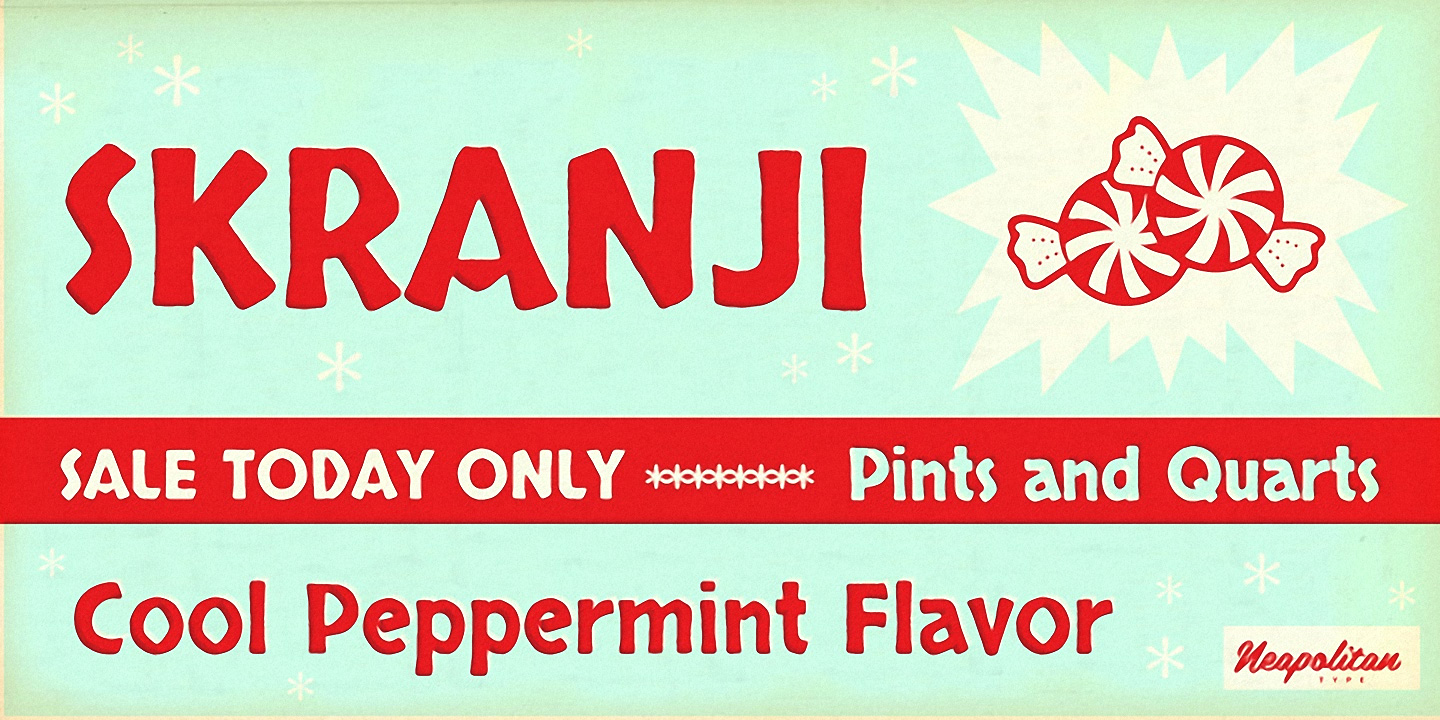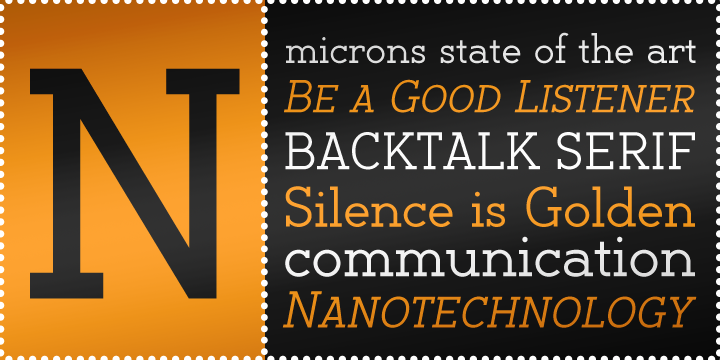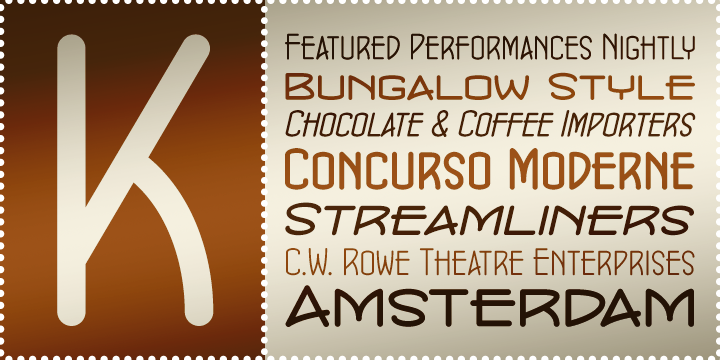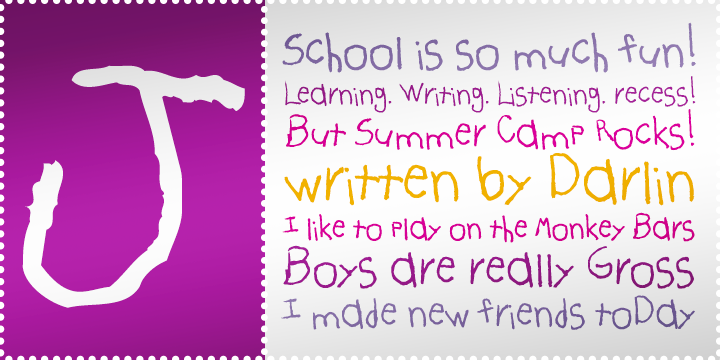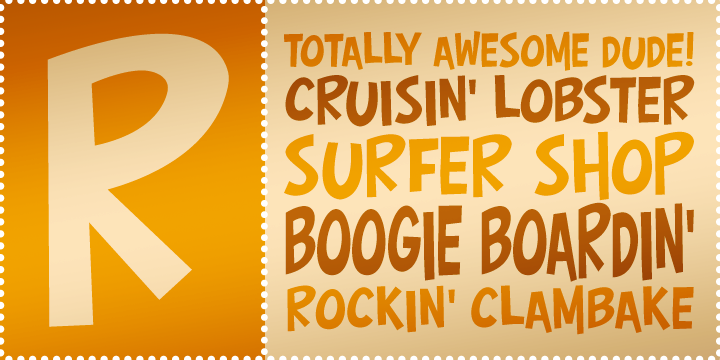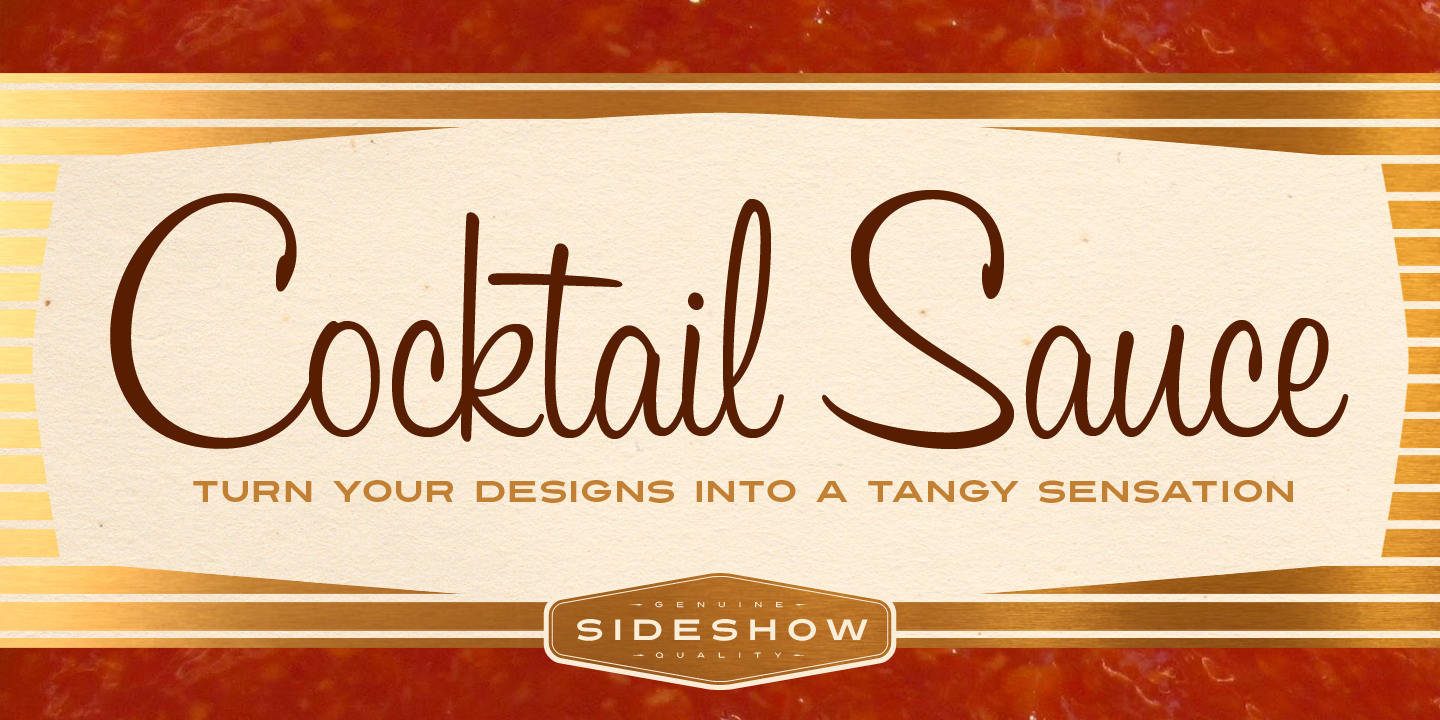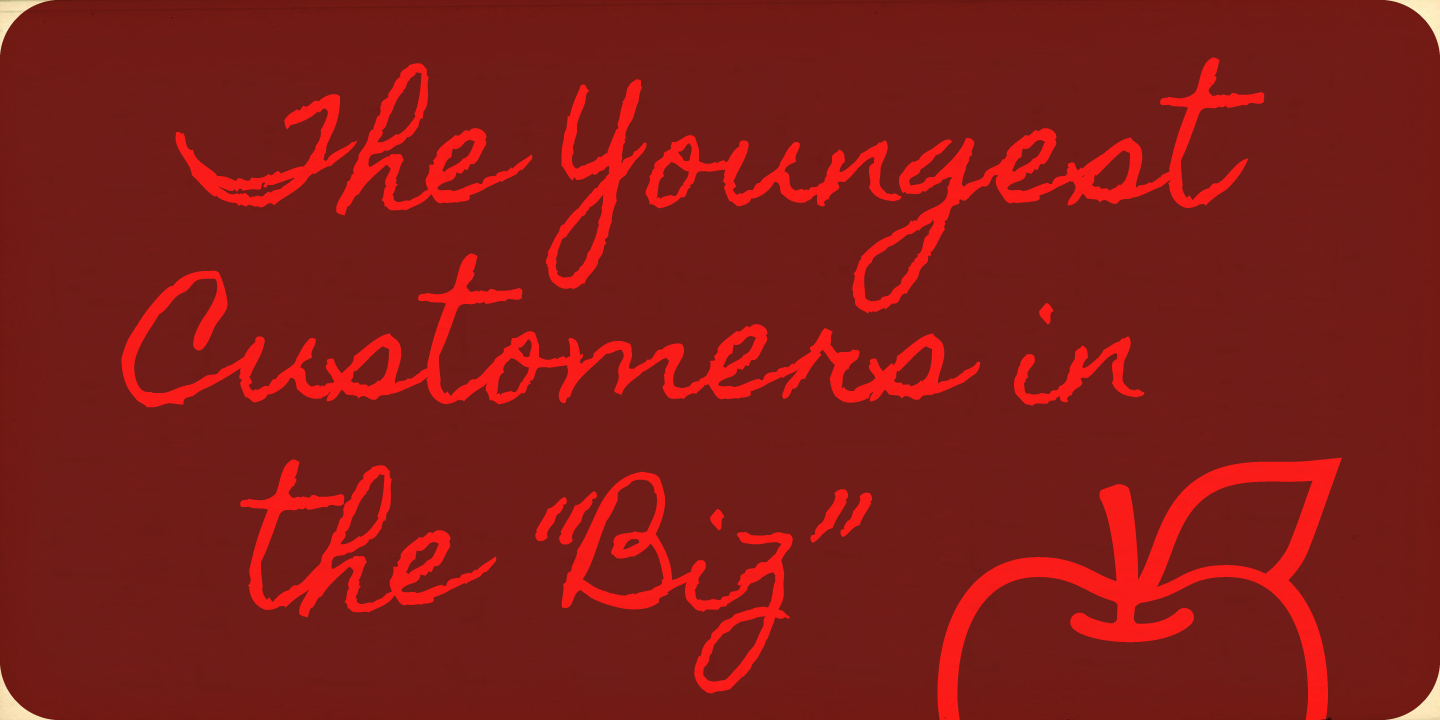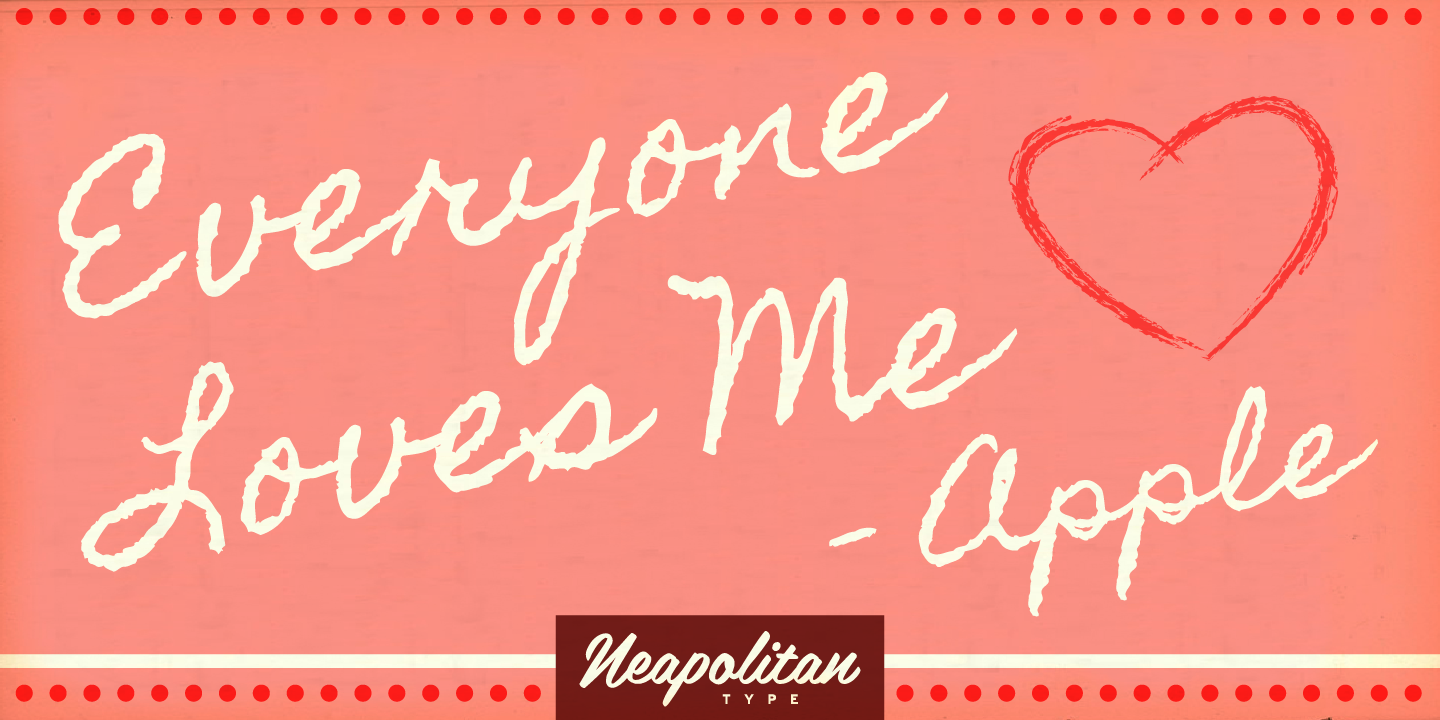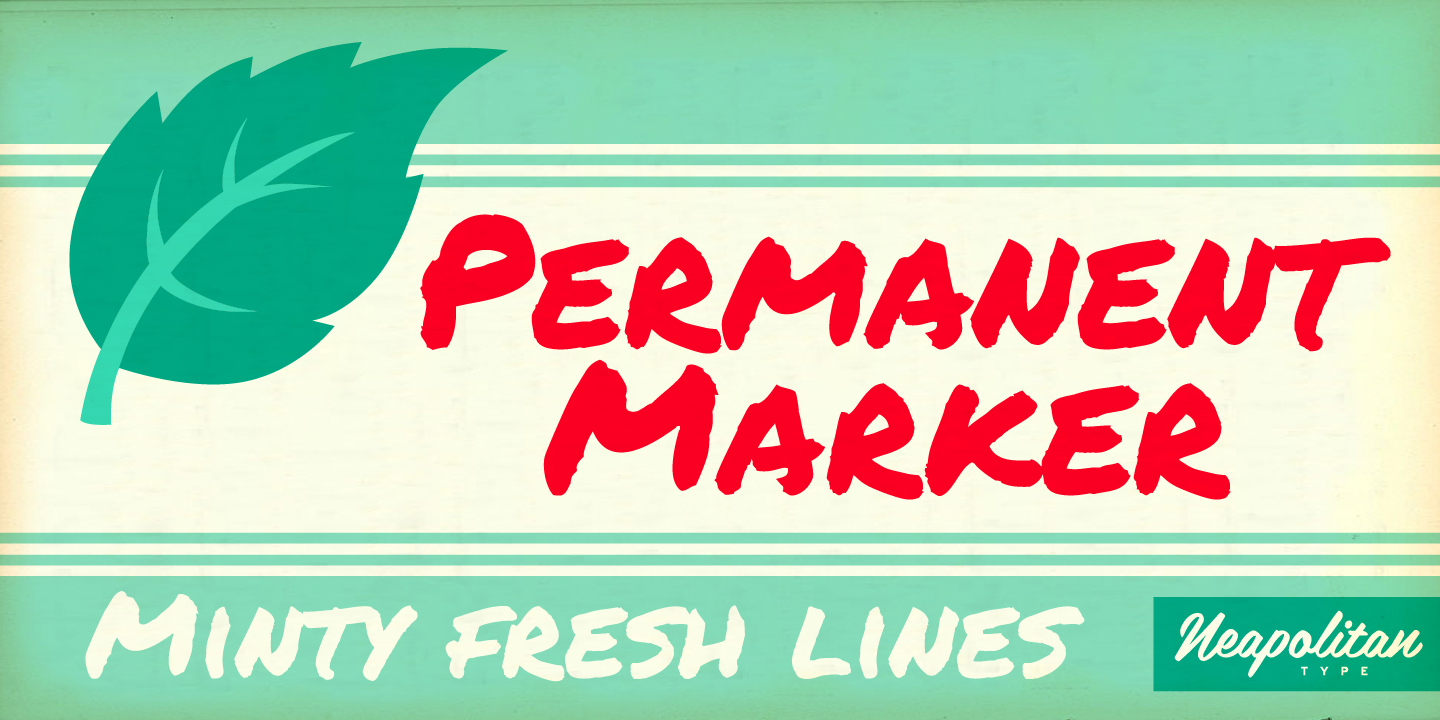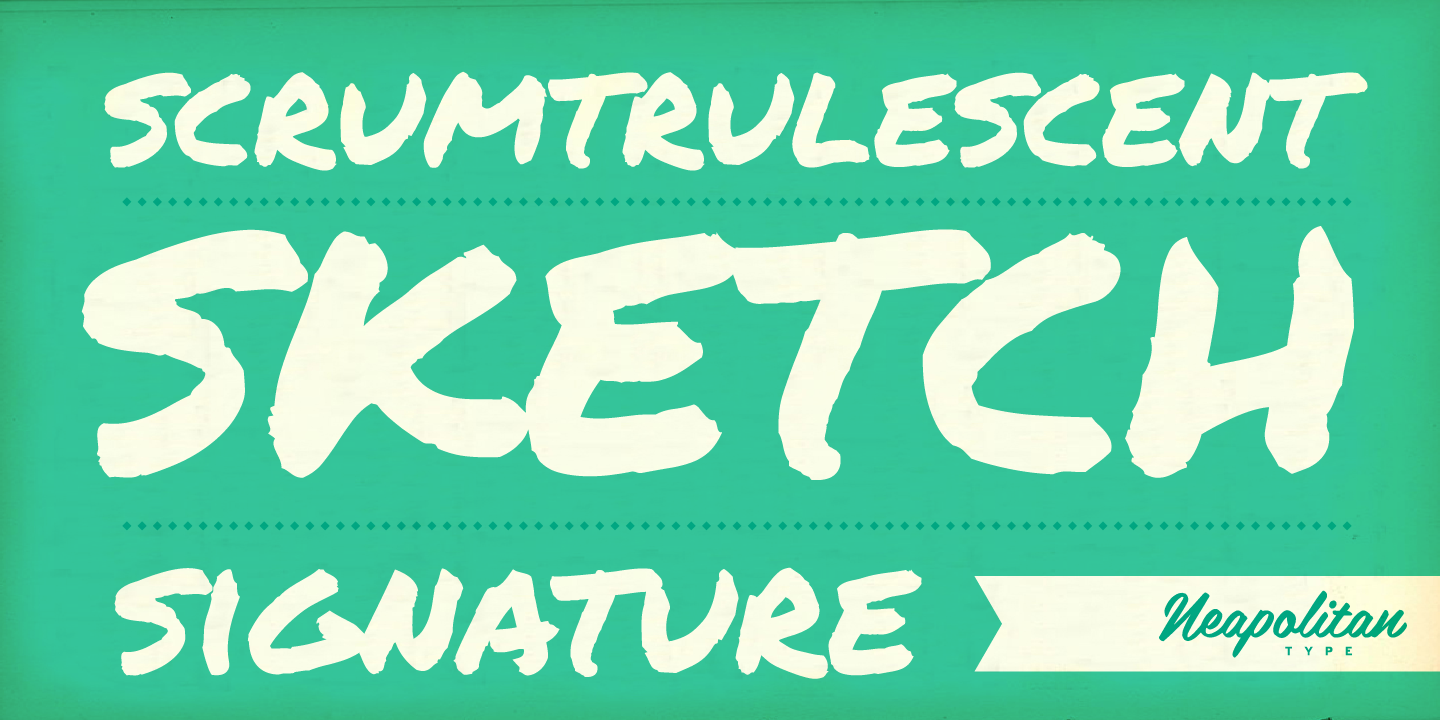
Born: Chicago, Illinois, 1973
Stuart Sandler launched the Font Diner foundry in 1996 and has become a major resource for retro design software products. He has created more than 400 original typefaces for the graphic design industry and established a reputation as the premier retro display typography designer inspired by 1950s popular culture.
Sandler added a second division called Mister Retro to the Font Diner umbrella in 2004 that features Machine Wash Image Filters™ and Snappy Hour™ vector images.
In 2006, he expanded his corporation again through a joint venture as publisher of high quality display typefaces at Font Bros before beginning his work in the revival of photolettered cold-type with his acquisition of the Filmotype Library in 2006 with over a dozen digital revivals to date.
In March of 2010, Sandler acquired the exclusive rights to revive and chronicle the history of the famous Lettering, Inc typeface library created by many giants from the golden age of lettering.